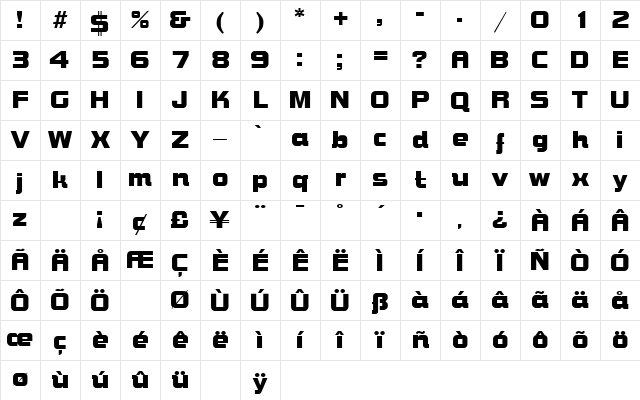
Bolt Regular
Design Context for Bolt
Bolt is a composed and adaptable typeface that performs quietly and consistently across a wide range of design contexts.
Pro Tip: Use Bolt in both headline and body roles to test its range before committing to a single application.